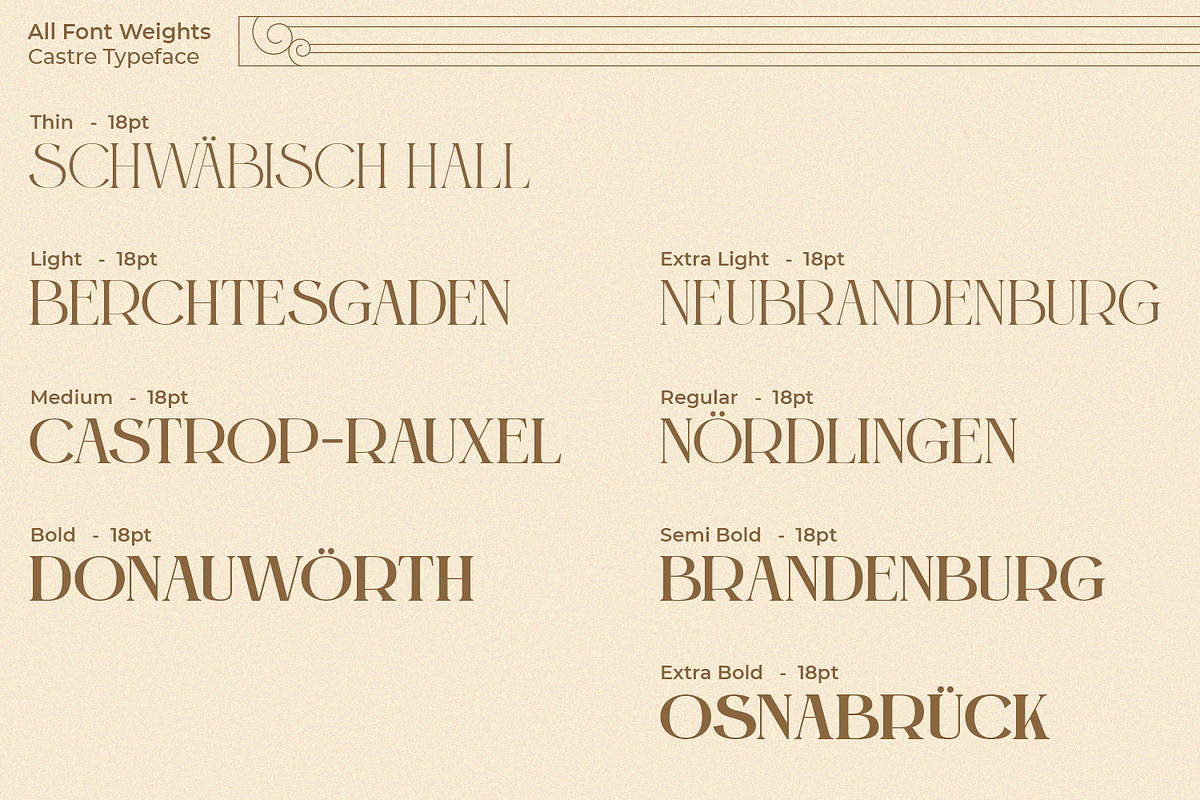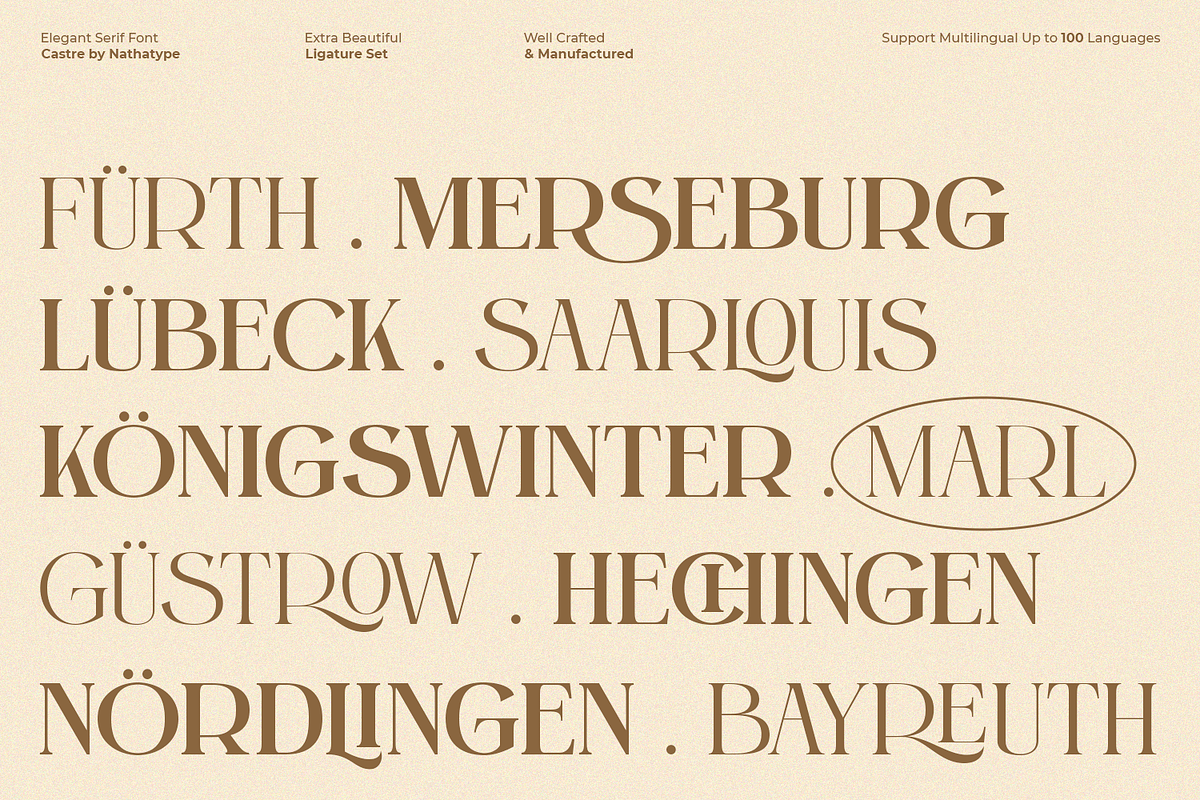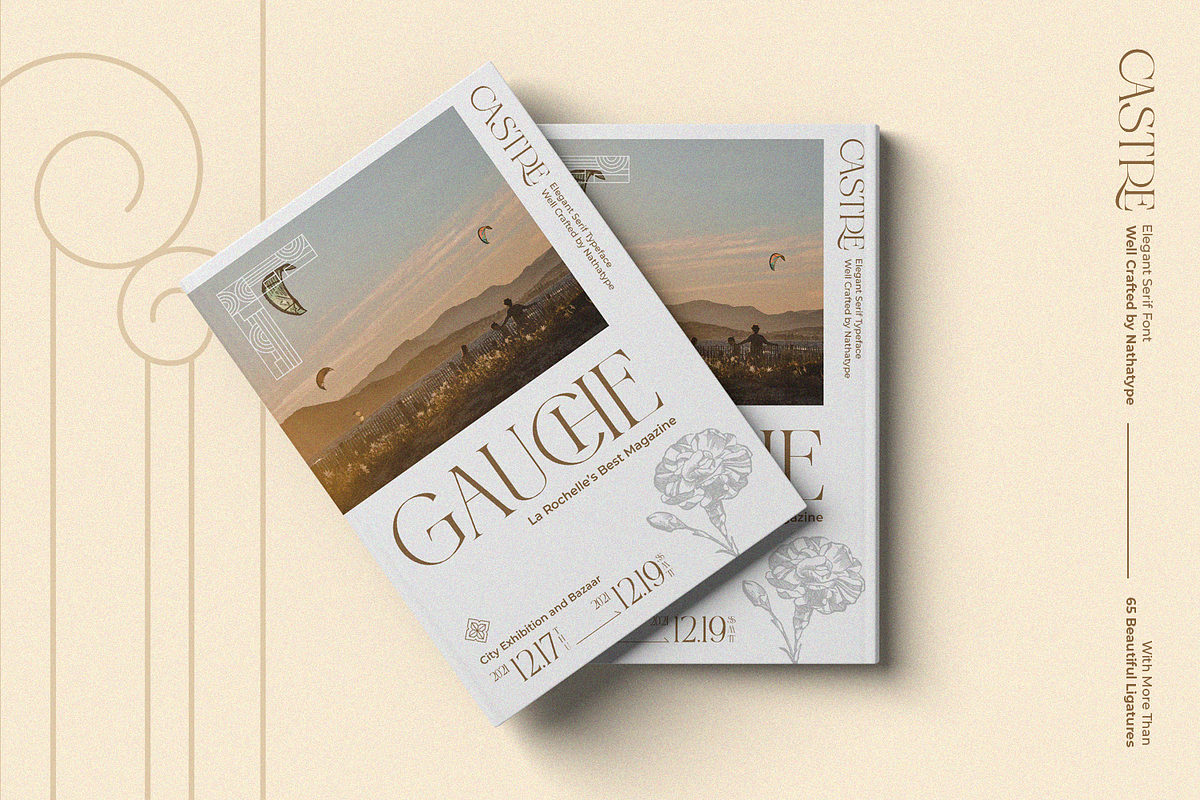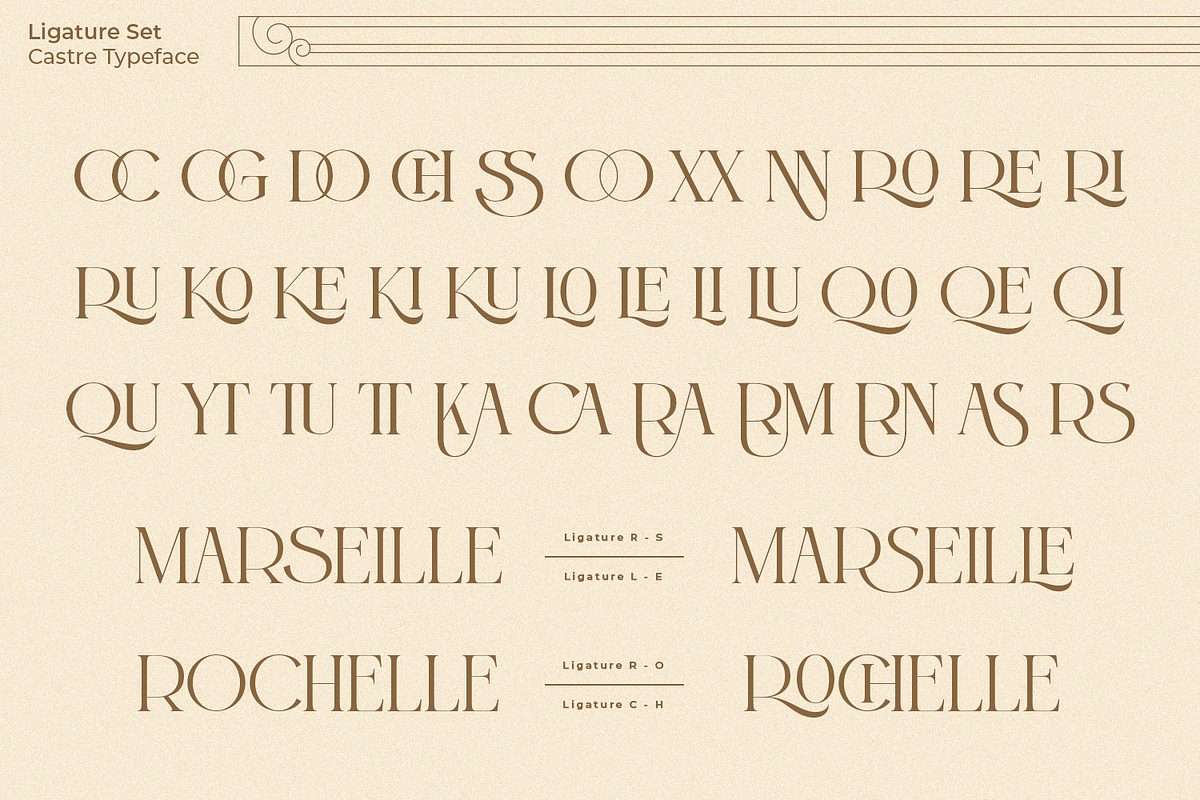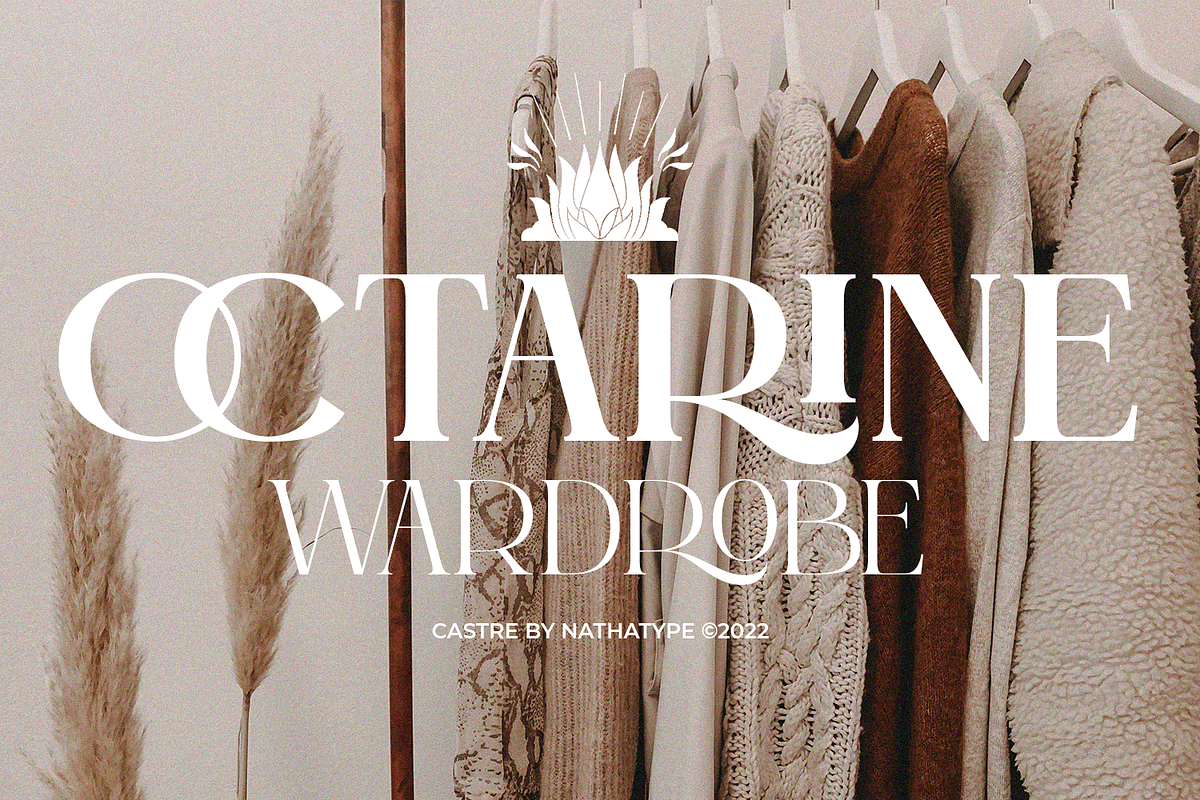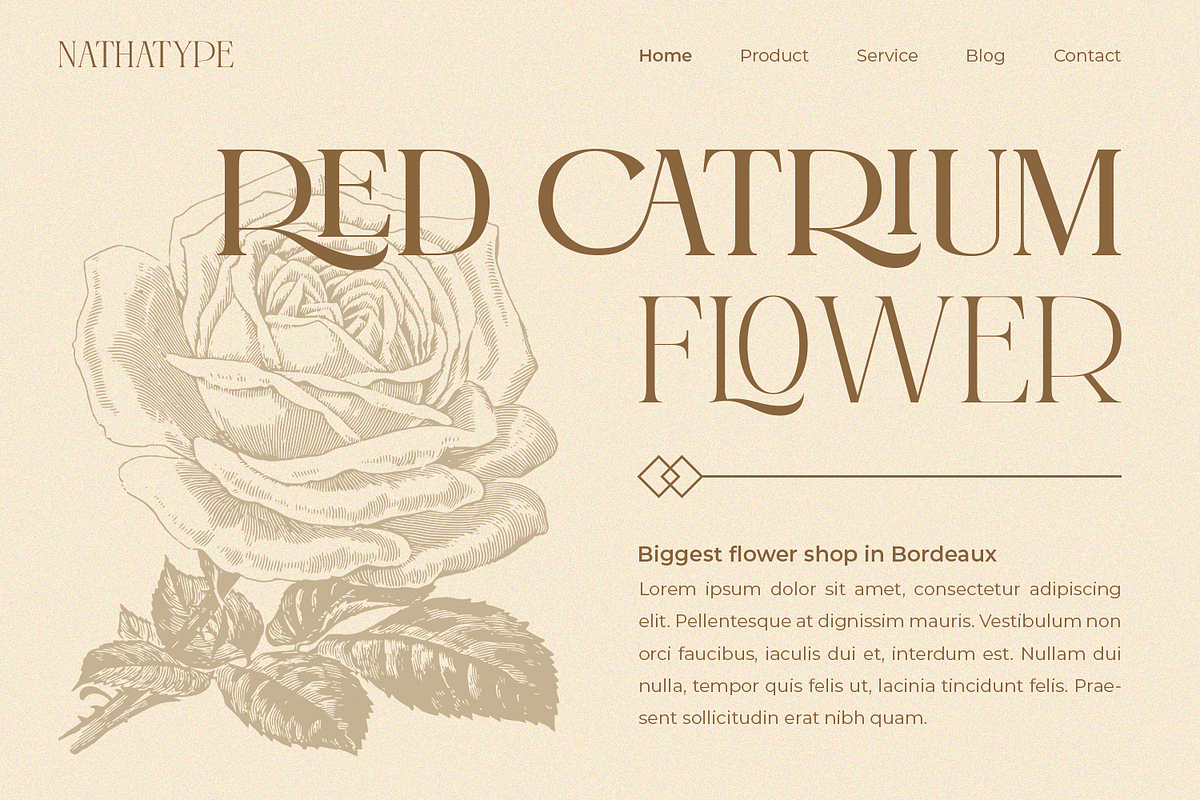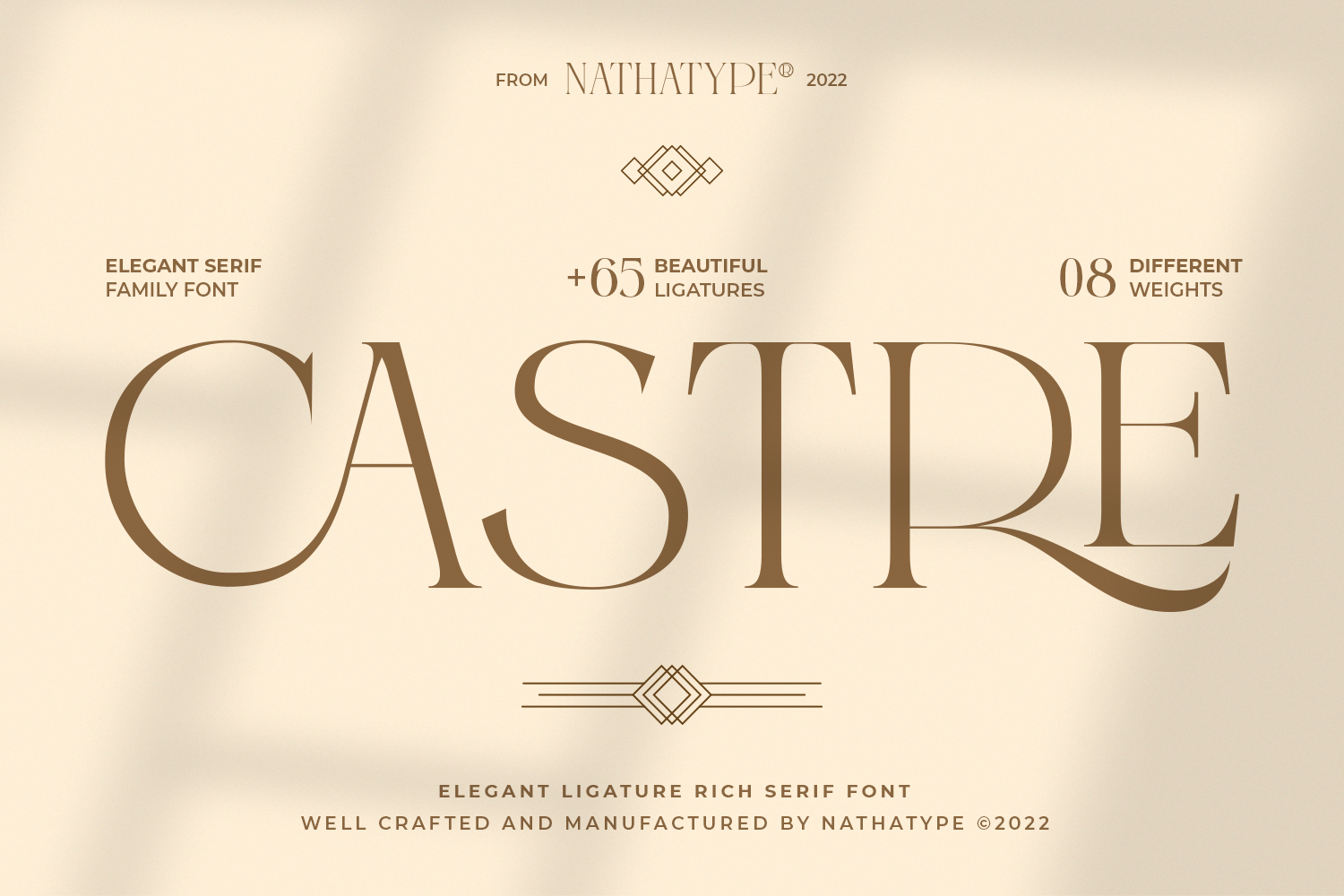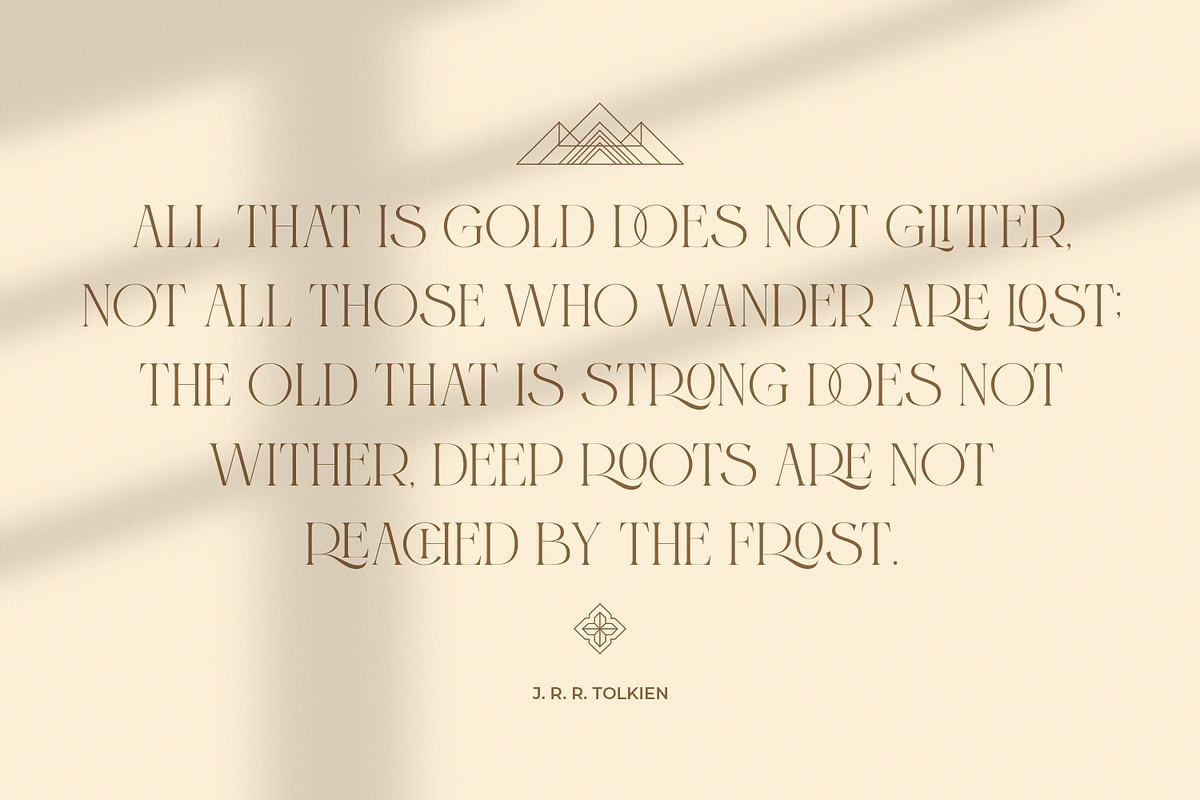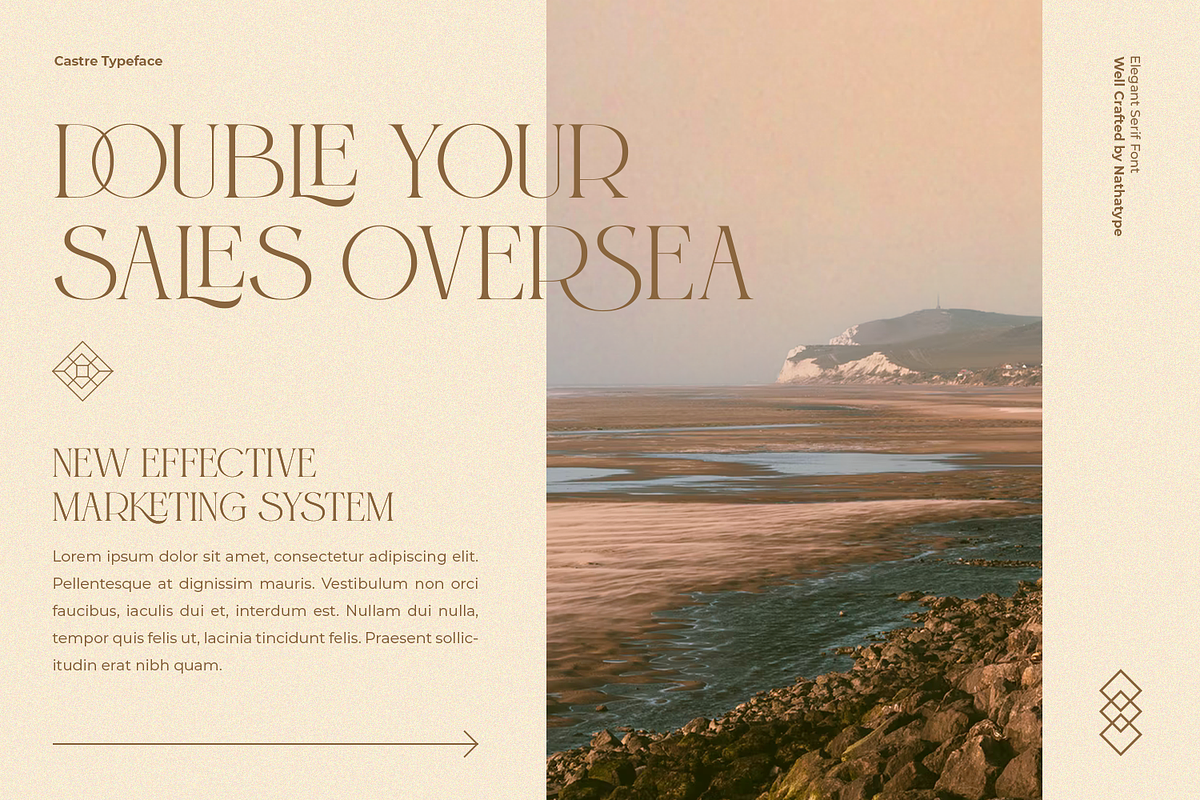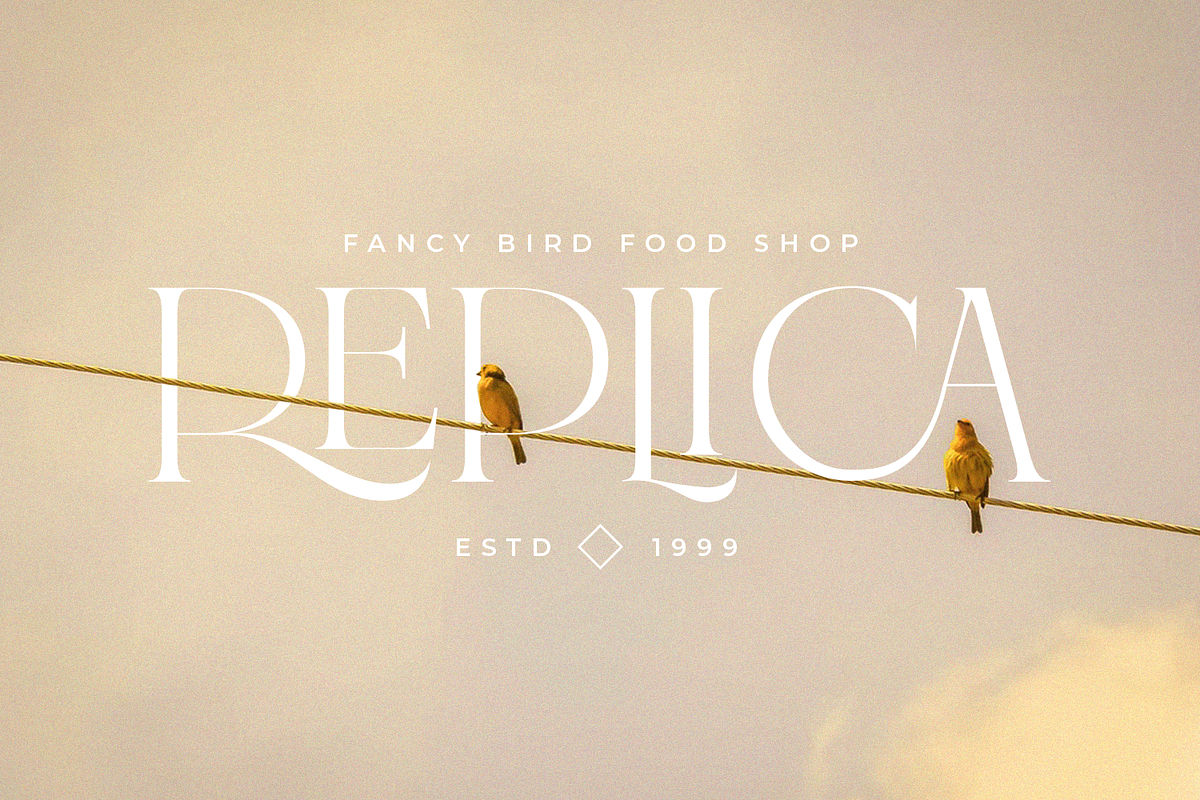
Castre - Serif Font Family (Updated)
Be a trendsetter and stand out with bold and sophisticated style font. The epic Castre.
Castre is a serif font family to better charm your designing experiences. This package to please you with a variety of choices for your own project consisting of eight different choices of thickness level. It is designed to be simple and easy to read without losing the modern feels. The uppercases design is paired with thin lines allow us to dive more into the world of modernity.
- Castre Thin
- Castre Extra Light
- Castre Light
- Castre Regular
- Castre Medium
- Castre Semi Bold
- Castre Bold
- Castre Extra Bold
Slay your design with Castre’s best features so you’ll look your best on what ever your design is, all the time.